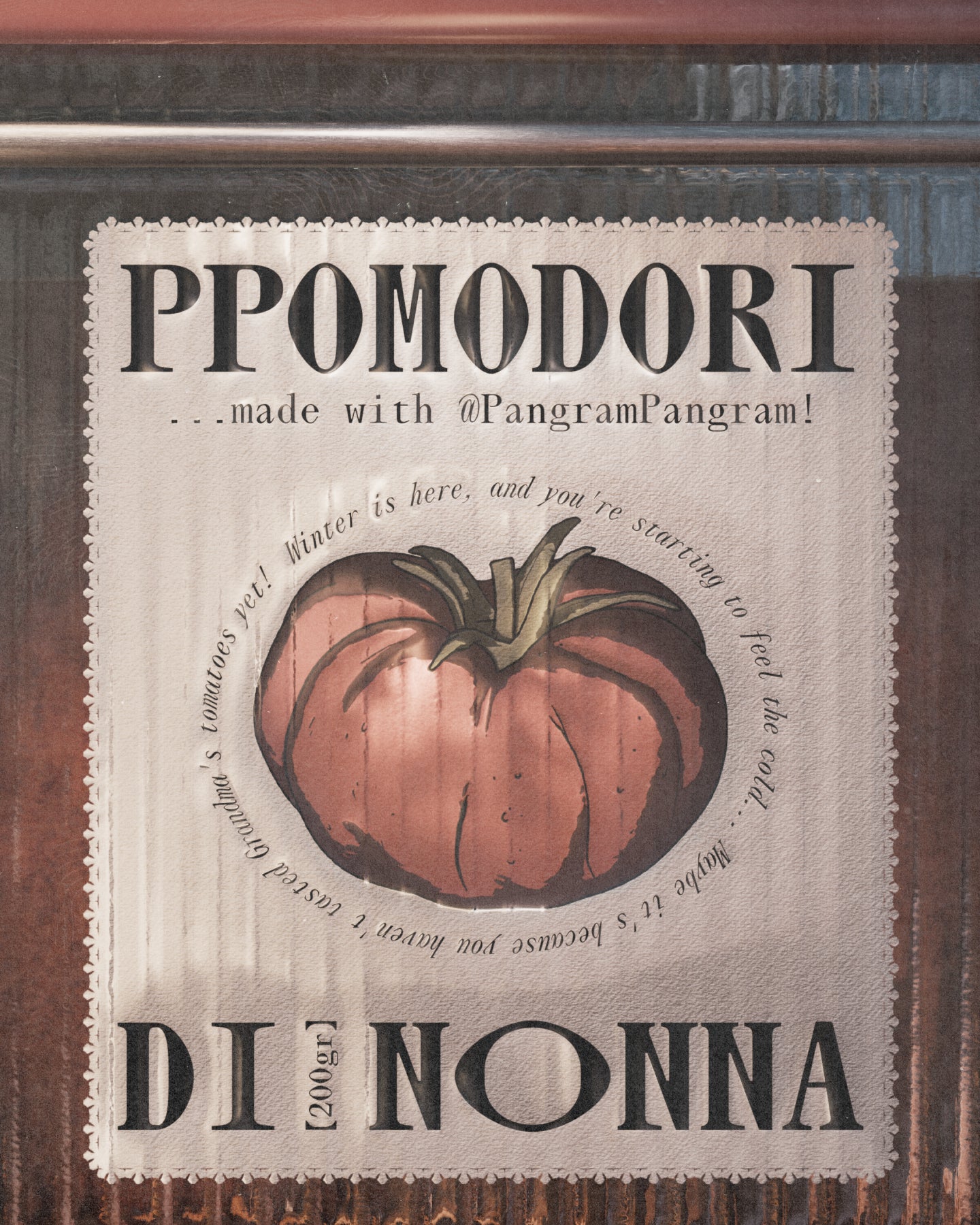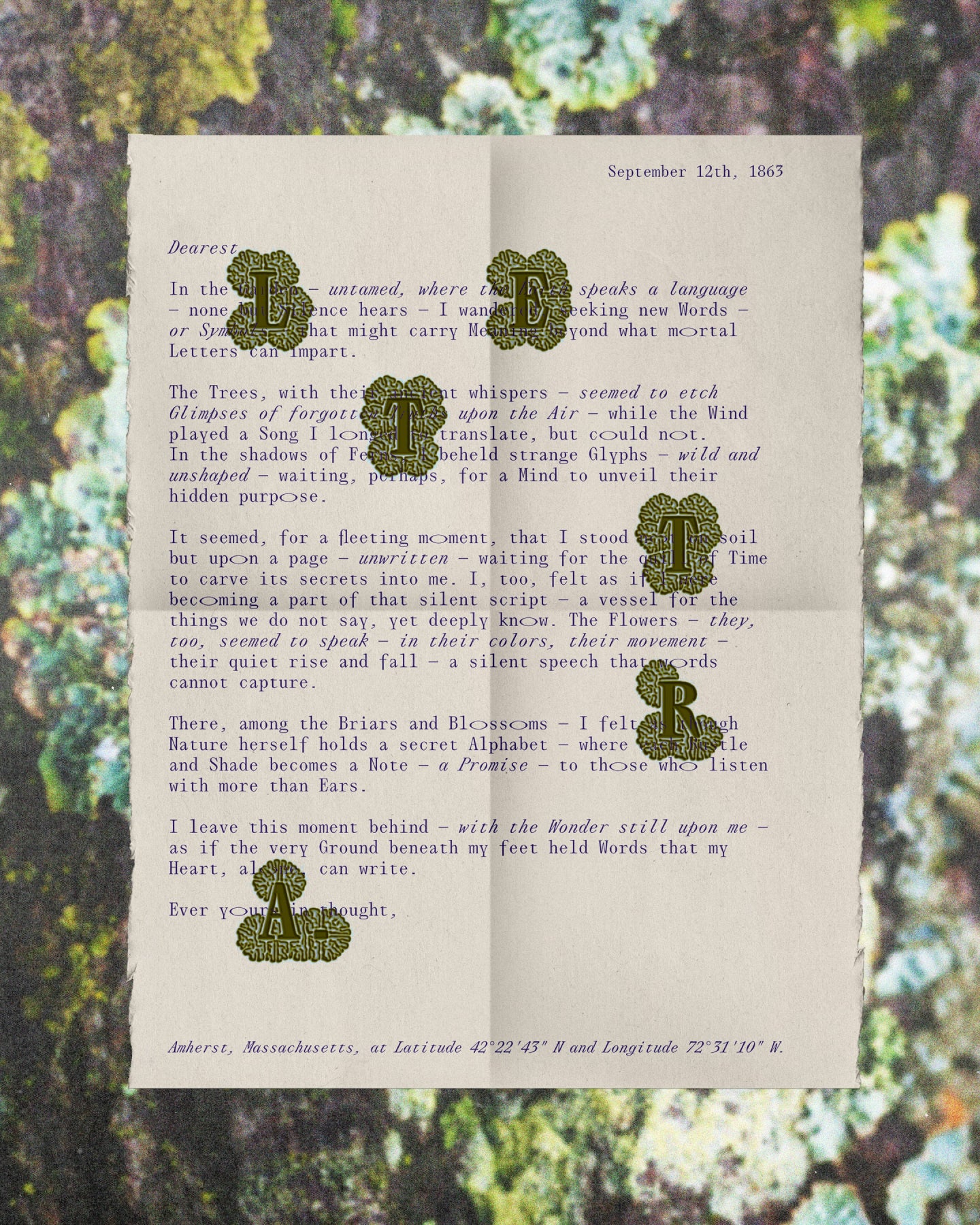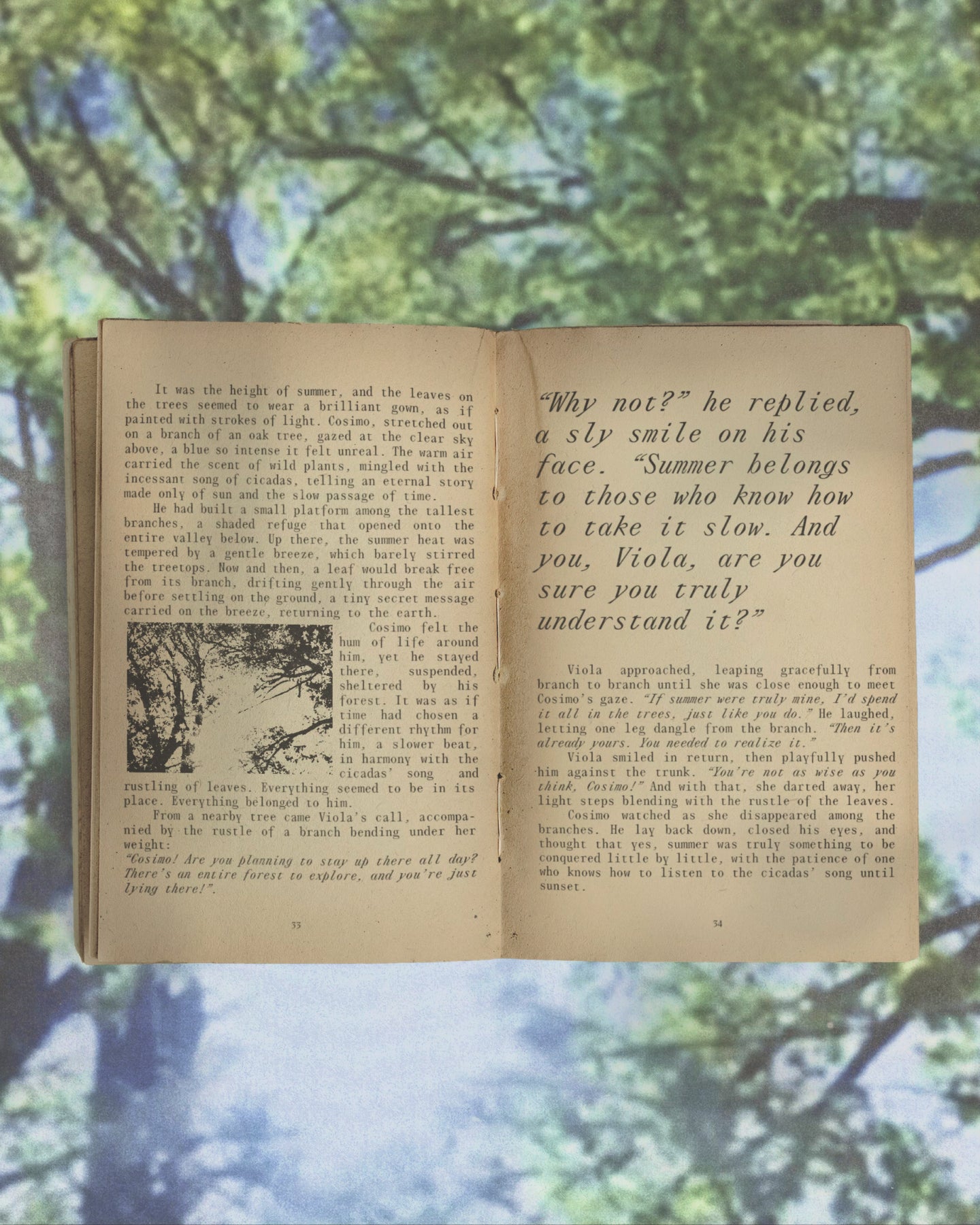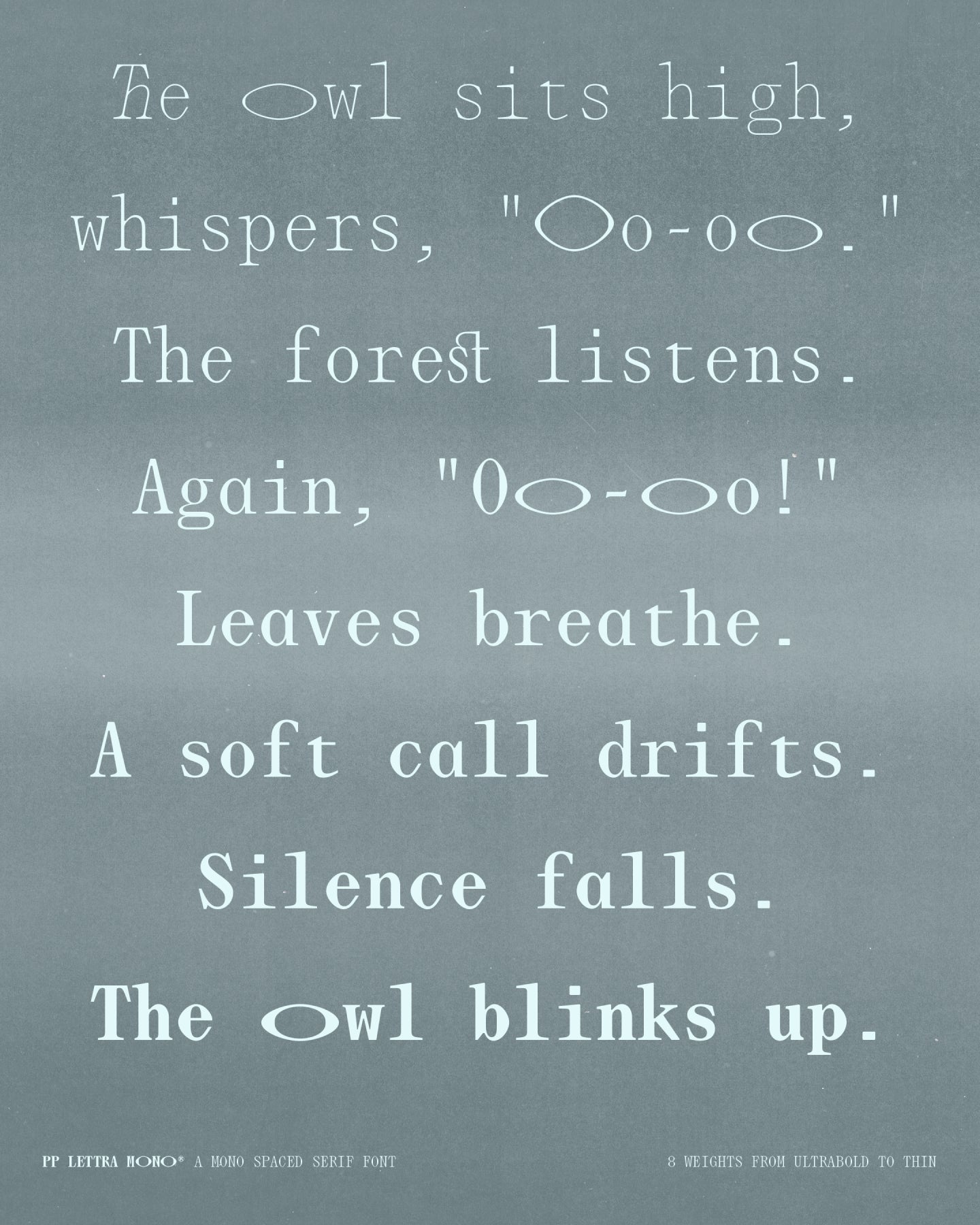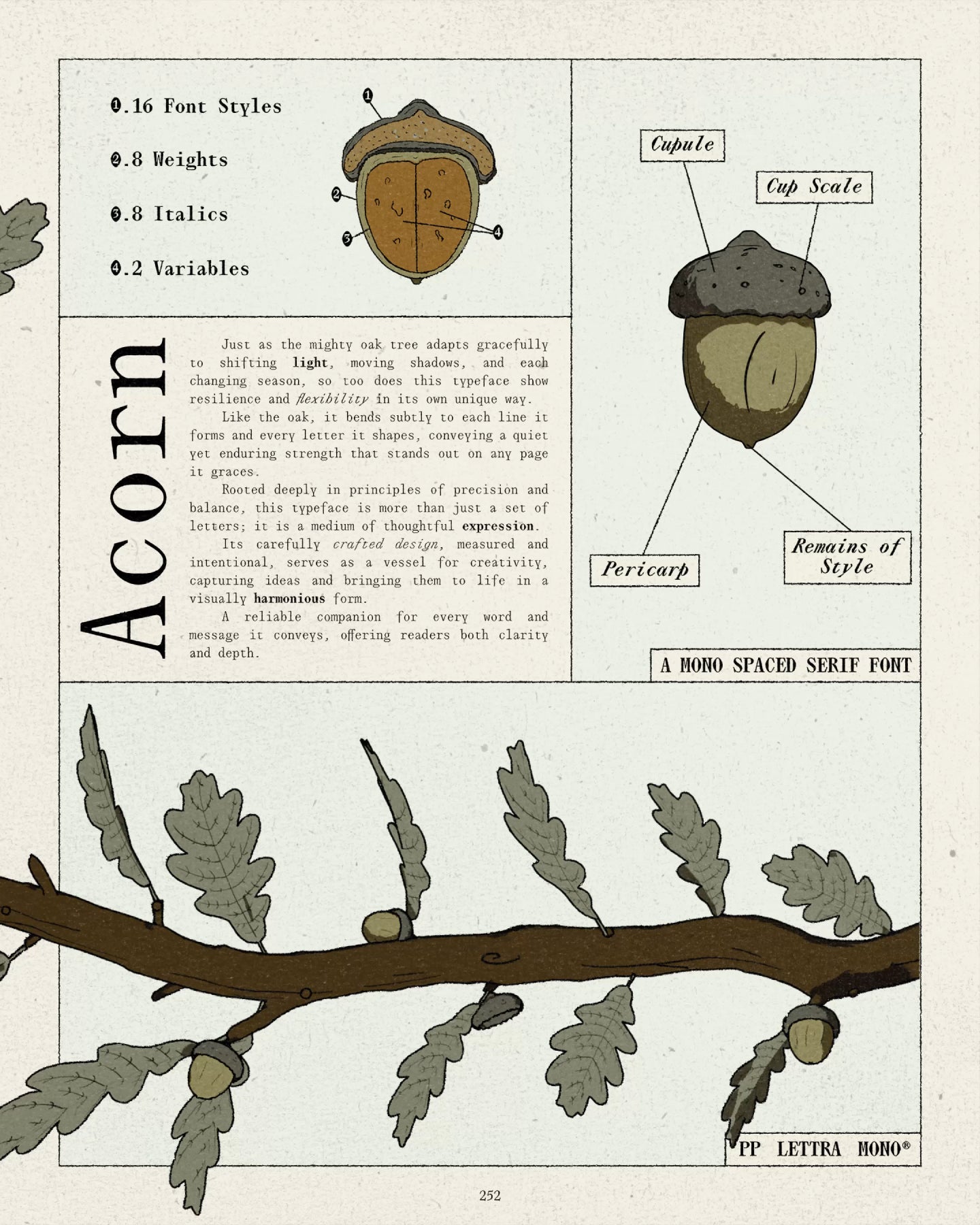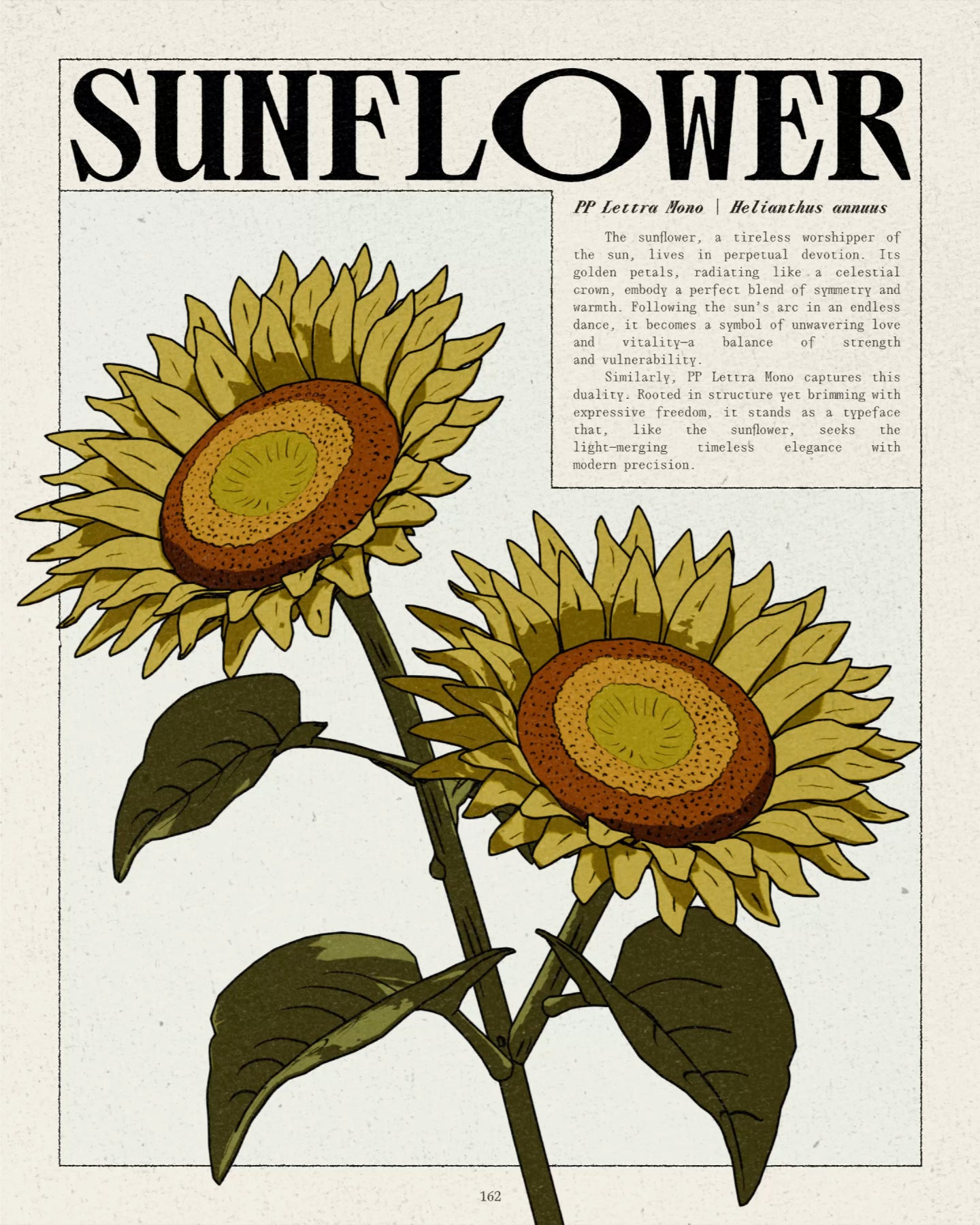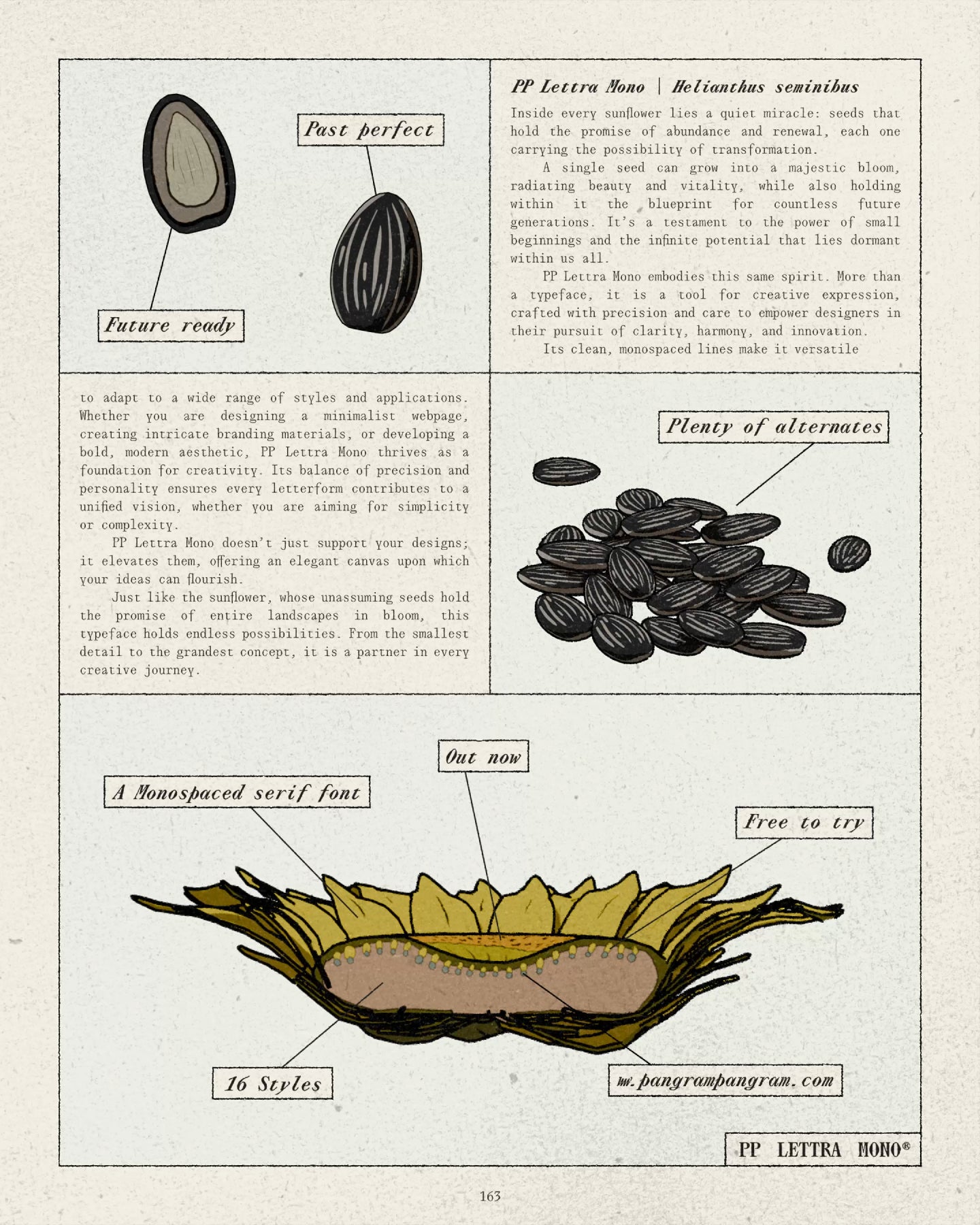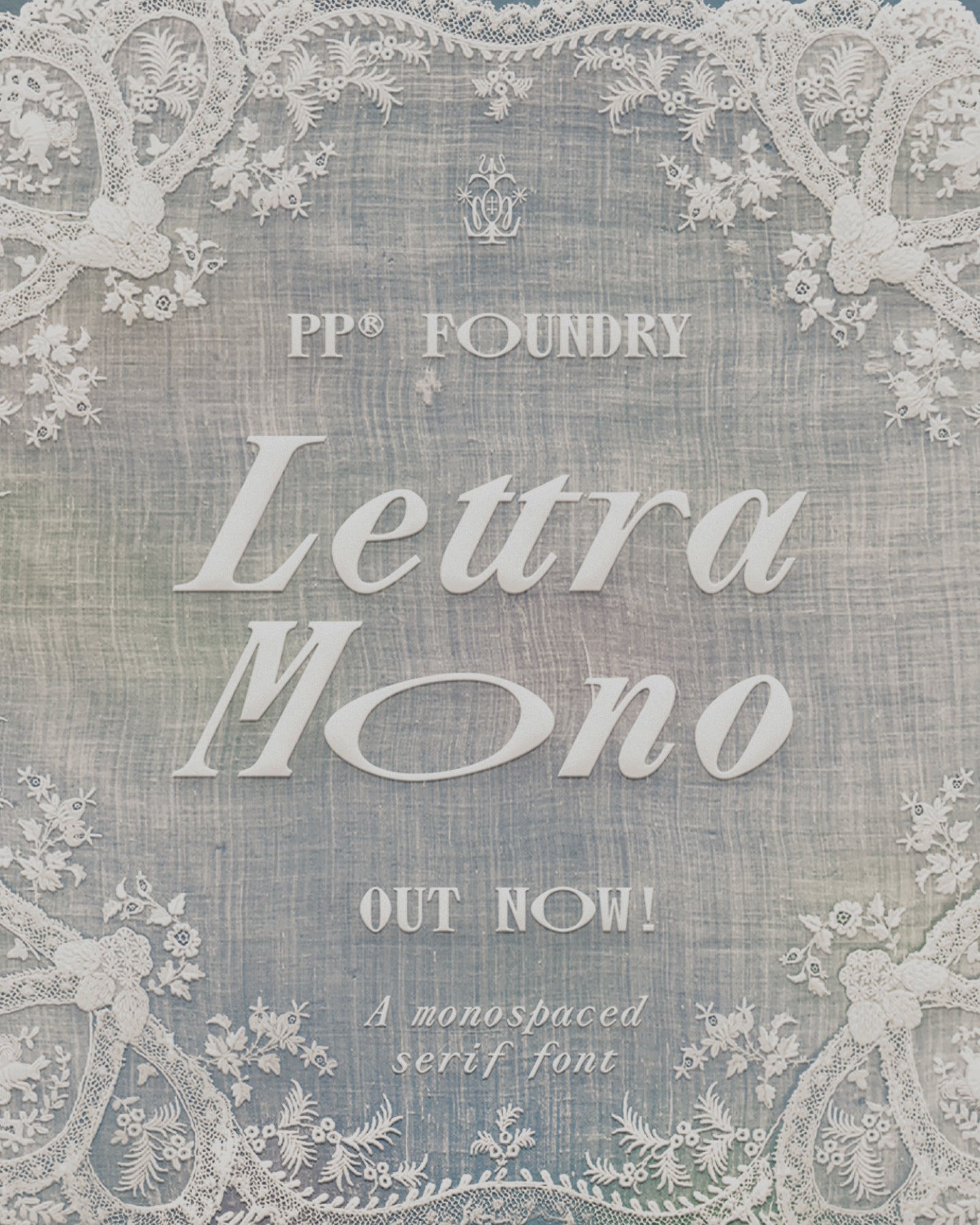
Lettra Mono
Classic aesthetics of serif typewriters.
Lettra Mono is variable
Lettra Mono
with Italics
Lettra Mono's Features
Alternate a
a
→
a
Alternate Oo
Oo
→
Oo
Alternate f y
fy
Alternate E F Q U
EFQU
Alternate &
&
→
&
Alternate 0
0
→
0
Alternate ®
®
→
®
Alternate @
@
→
@
Double en em dash
– —
Italic Alternate R U
RU
Italic Alternate f k y z
fkyz
Italic Alternate N
N
→
N
Classic aesthetics of serif typewriters.
Lettra is a monospaced serif typeface that explores the design challenges of modular spacing, with each character individually crafted to ensure consistent weight and proportion across the set. The design draws inspiration from the classic aesthetics of serif typewriter fonts and the detailed classifications seen in botanical drawings. It showcases a strong vertical contrast and distinctive diamond-shaped details, blending nostalgic appeal with mechanical precision.
With eight weights in both upright and italic styles, PP Lettra balances structure with character and creativity. It supports a wide range of languages and features, offering a variety of alternated characters. Additionally, the font includes an experimental set of characters, such as unconventional ligatures, ordinal abbreviations, an unusual double-width uppercase and lowercase Oo, and a distinctive sigil.